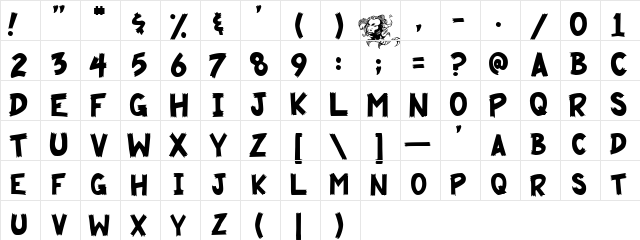
Cliffhanger Normal Free Font
Cliffhanger Normal
Design Context for Cliffhanger
Cliffhanger is a composed and adaptable typeface that performs quietly and consistently across a wide range of design contexts.